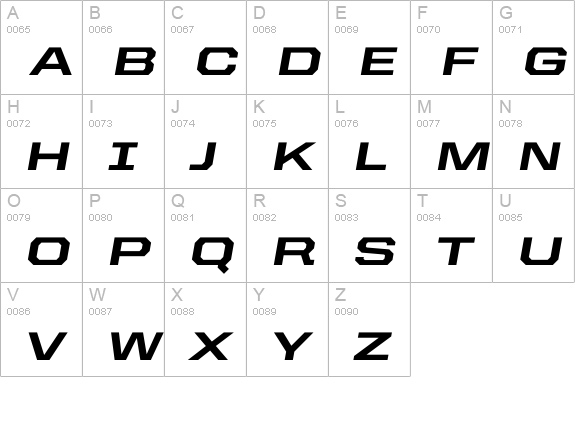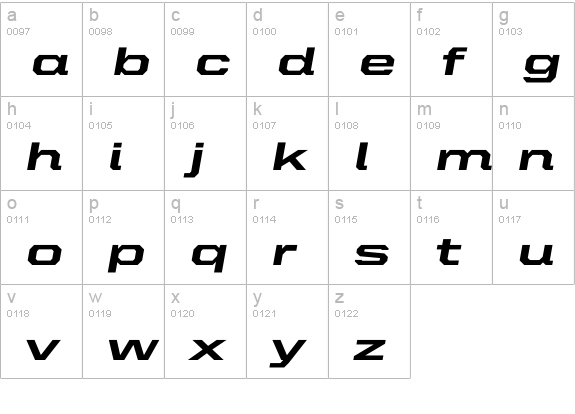
United Italic Ext Heavy Font Details
United Italic Ext Heavy is a heavy, high-impact, italic variant in the United typeface family \xE2\x80\x94 well suited to high-impact headlines, posters, and display advertising.
United Italic Ext Heavy is a striking and powerful typeface that demands attention. With its bold and weighty design, this font exudes confidence and authority. The strong and distinct letterforms are carefully crafted, creating a visually appealing and impactful look. This font is perfect for projects that require a strong and commanding presence, such as headlines, titles, logos, and branding materials. Its extended characters provide additional versatility, making it suitable for a wide range of design applications. One of the most impressive aspects of United Italic Ext Heavy is that it is freely available to download at FontsMarket.com. This means that designers and creatives can take advantage of its bold and impactful aesthetic without any financial constraints. Whether you are a professional designer or a hobbyist, this font offers a high-quality and visually striking option, completely free of charge. With its bold weight and extended characters, United Italic Ext Heavy allows designers to make a statement and create visually stunning compositions. Its versatility and availability make it an essential addition to any designer's toolkit. Download this font today at FontsMarket.com and unleash the power of bold typography in your designs.